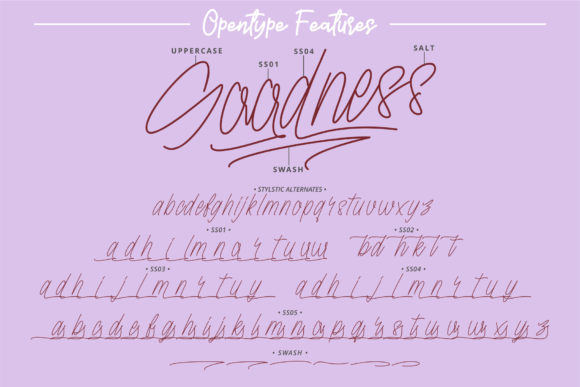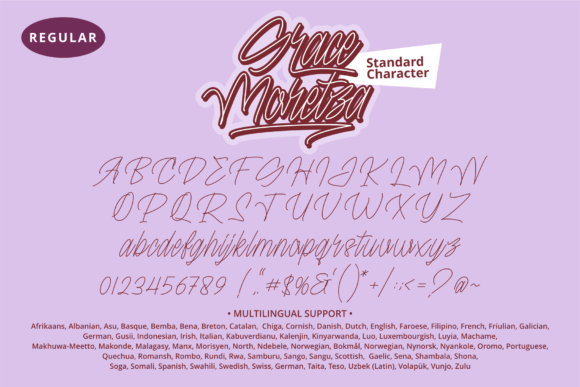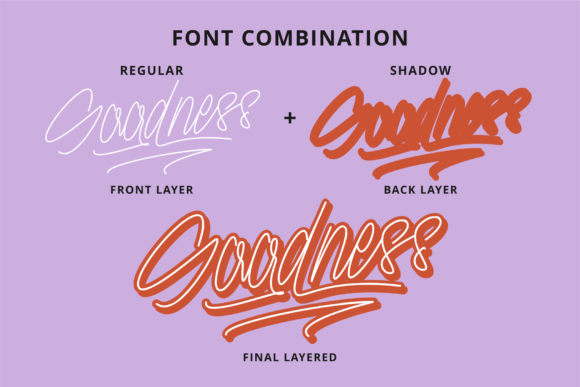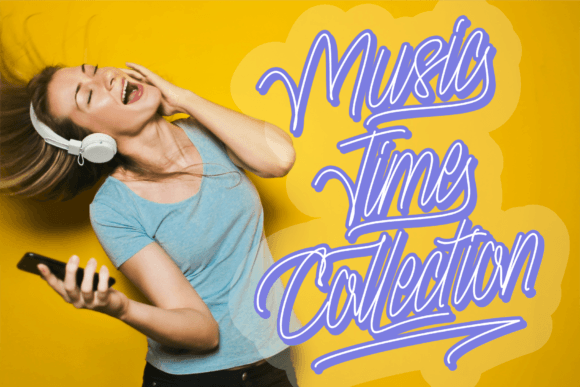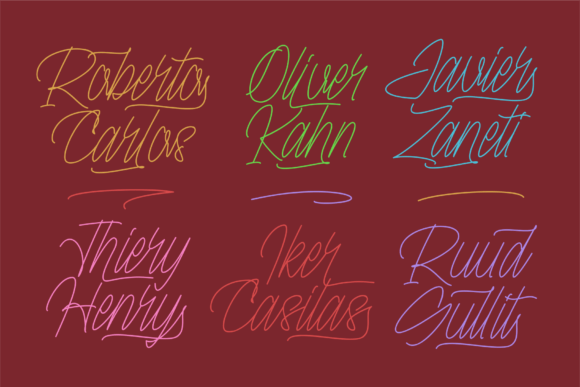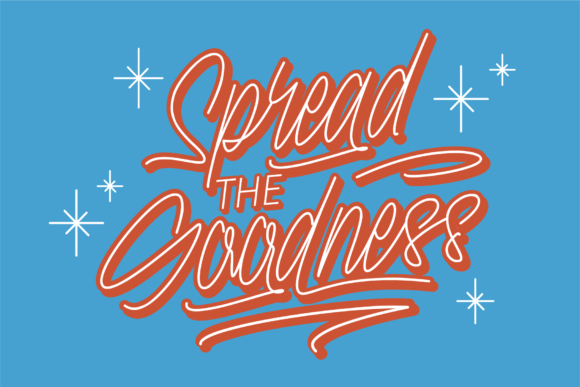
Discover the Charm of Grace Moretza Font: A Handwritten Layered Font with a Nostalgic Touch
Are you a designer or crafter looking for a unique and versatile font to elevate your projects? Look no further than the Grace Moretza Font, a beautiful handwritten layered font that exudes a nostalgic charm. With its stunning design and ease of use, this font is perfect for a wide range of projects, from logos and branding to greeting cards, prints, invitations, and more!
What Makes Grace Moretza Font So Special?
Grace Moretza Font is a true gem in the world of typography. Its handwritten layered design gives it a distinctive, one-of-a-kind look that’s sure to capture the attention of your audience. The font’s nostalgic touch adds a touch of warmth and personality to any project, making it perfect for designers and crafters who want to create something truly special.
One of the standout features of Grace Moretza Font is its incredible versatility. Whether you’re working on a logo, a greeting card, or a branding project, this font looks breathtaking. Its elegant, cursive lines and beautiful swashes make it perfect for adding a touch of sophistication and elegance to any design.
The Benefits of PUA Encoding
Grace Moretza Font is PUA (Private Use Area) encoded, which means that you can access all of the glyphs and swashes with ease. This makes it incredibly easy to use the font in your designs, even if you’re not a seasoned typography expert. With PUA encoding, you can simply access the font’s extensive library of glyphs and swashes, and use them to create stunning, one-of-a-kind designs.
So, what can you create with Grace Moretza Font? The possibilities are endless! Here are just a few ideas to get you started:
- Logos and branding: Use Grace Moretza Font to create a stunning logo or brand identity that sets your business apart.
- Greeting cards: Add a touch of elegance and sophistication to your greeting cards with this beautiful font.
- Prints and posters: Use Grace Moretza Font to create stunning prints and posters that showcase your design skills.
- Invitations: Create beautiful, one-of-a-kind invitations for weddings, parties, and other special events.
- Social media graphics: Use Grace Moretza Font to create stunning social media graphics that grab attention and drive engagement.
Why Designers and Crafters Love Grace Moretza Font
So, why do designers and crafters love Grace Moretza Font? Here are just a few reasons:
- Unique and distinctive: This font is truly one-of-a-kind, making it perfect for designers and crafters who want to stand out from the crowd.
- Easy to use: With PUA encoding, Grace Moretza Font is incredibly easy to use, even for those with limited typography experience.
- Versatile: This font can be used for a wide range of projects, from logos and branding to greeting cards and social media graphics.
- Nostalgic charm: The font’s nostalgic touch adds a touch of warmth and personality to any project.